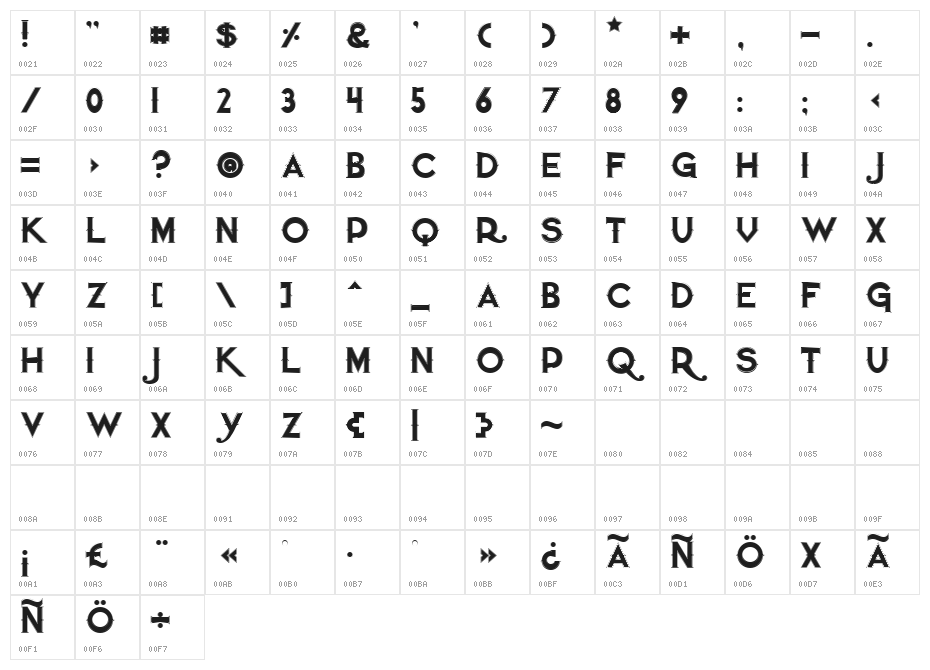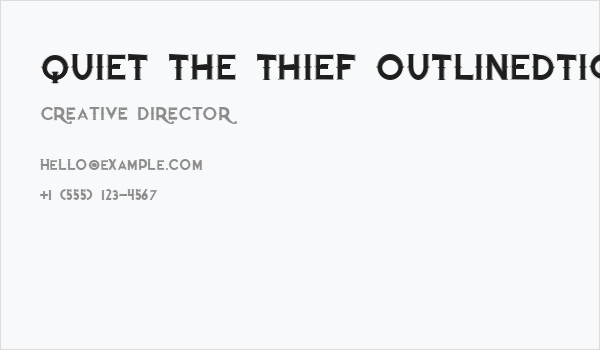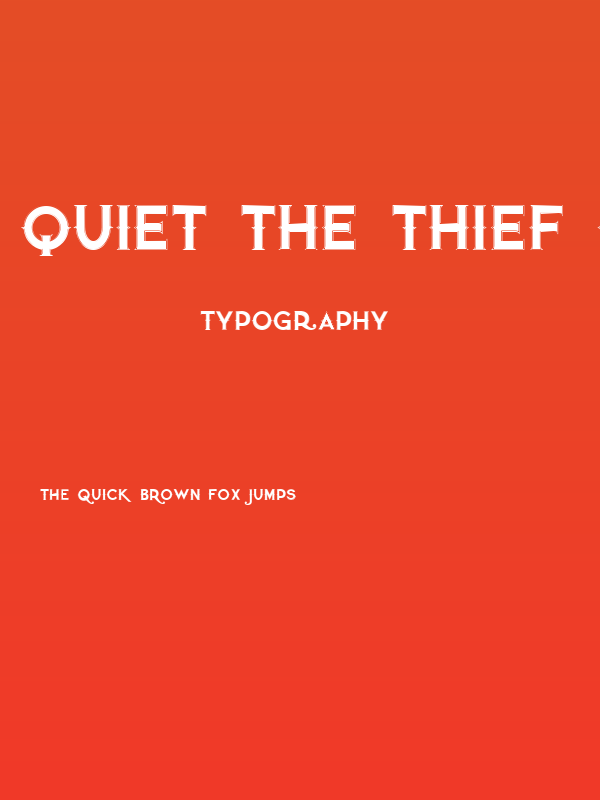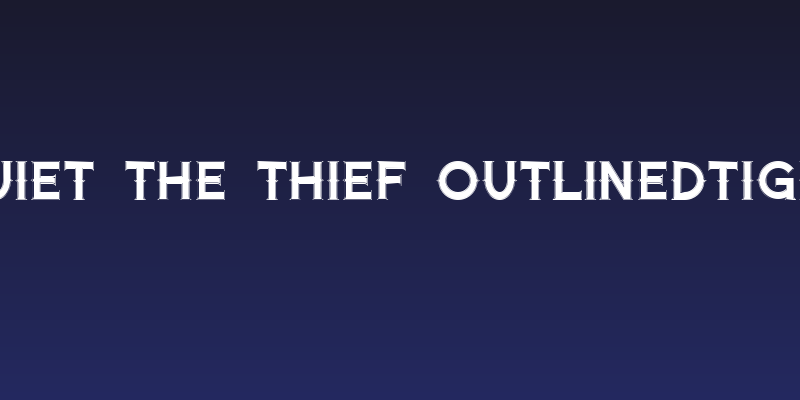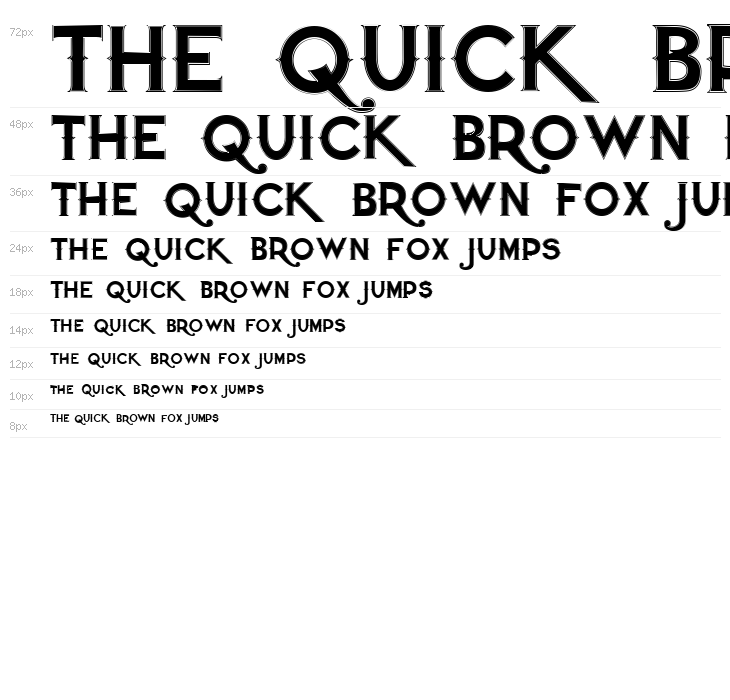
Quiet the Thief OutlinedTight Font
Quiet the Thief OutlinedTight Description
This font features a bold, outlined style with a distinct vintage flair. The characters have a strong presence, with thick strokes and a shadow effect that adds depth. The uppercase letters are particularly striking, with sharp serifs and a slightly condensed form. The lowercase letters maintain the same boldness, ensuring consistency across text. Numbers are equally bold and maintain the outlined style, making them stand out. Special characters are designed with the same attention to detail, ensuring they complement the overall aesthetic. This font is perfect for creating eye-catching headlines or logos that require a touch of classic elegance.
| Proposed Projects | Ideal for vintage-themed posters, logos, and headlines that need a bold statement. |